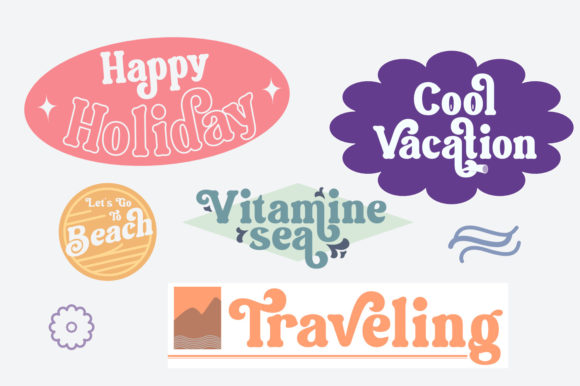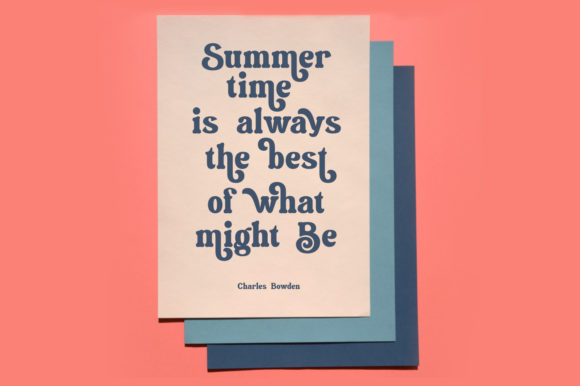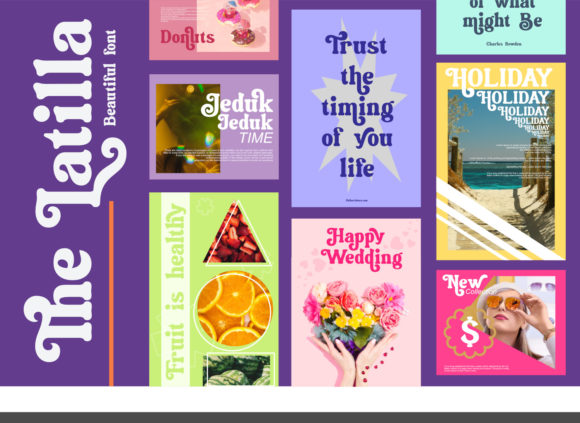
Introduction to Latilla Font
As a designer, there’s nothing quite like that moment when a project starts to come together. You’ve poured your heart and soul into the design, and suddenly, all the elements fall into place. The colors pop, the typography flows, and your creative vision is finally realized. But what sets a truly exceptional design apart? For many designers, it’s all about the font. That’s where the Latilla Font comes in – a bold, uniquely designed display font that adds an extra layer of sophistication to any project.
With its high-quality design and transparent background, the Latilla Font is the perfect addition to any creative project. Whether you’re working on a logo, a brochure, or a website, this font is sure to make a statement. And the best part? It’s free to download, making it an invaluable resource for designers on a budget.
Discover the Power of Latilla Font
Key Features of Latilla Font
- Unique, modern font style with a transparent background, perfect for graphic design and digital art.
- Includes a comprehensive character set, including uppercase and lowercase letters, numbers, and special characters.
- Designed at a high resolution, making it suitable for use in print and digital media, including signage, logos, and branding.
Honest Review: Latilla Font
I recently had the chance to work with the Latilla Font and I must say it’s been a delight. This free download has become an essential design resource in my creative project.
What works well about Latilla Font is its high quality and versatility. The font comes in multiple weights and styles, making it easy to use in a variety of contexts. I particularly appreciate the transparent background, which allows me to easily customize the design to fit my needs.
Here are some of the key features that I enjoy:
- High quality and crisp typography
- Multiple weights and styles to choose from
⚠️ One limitation I’ve noticed is that the font may not be suitable for very small text sizes, as the lines can become a bit thin.
Overall, I’m very impressed with the Latilla Font and would highly recommend it to anyone looking for a high-quality, free design resource for their creative project.
For optimal results, use the Latilla Font with a transparent background to create a seamless and modern design. Common use cases include branding materials, social media graphics, and presentation slides. Experiment with different font sizes and colors to find the perfect combination for your creative project.